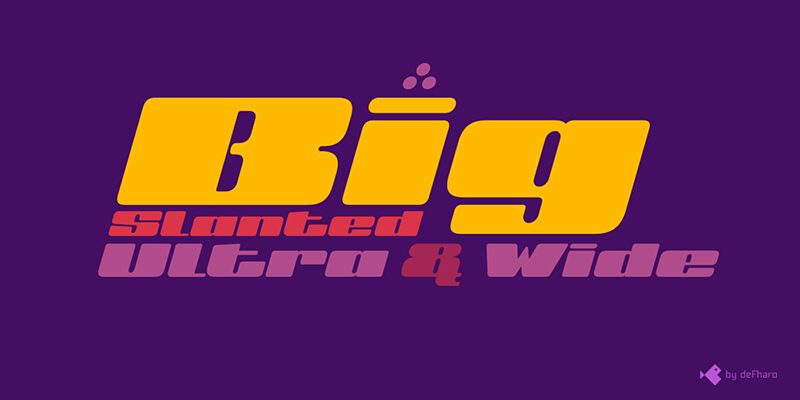
Big Slant font
Big Slant
deFharo
BIG Slant, with a striking 16-degree slant, embodies speed, modernity, and a distinctive appearance. As its name suggests, it is indeed enormous; with just three letters, it communicates more than many fonts do in a full line. This ultra-wide, ultra-black, and ultra-expressive typeface is crafted to command attention with strength, decisiveness, and style. Each letter is designed to convey boldness without sacrificing elegance, ensuring impressive functionality.
The ascenders and descenders have been deliberately shortened to enhance horizontal presence, emphasizing what truly matters. Every detail has been meticulously designed to amplify the unique width of the font. The outcome is a powerful, cohesive, and perfectly legible visual texture that stands out in any design.